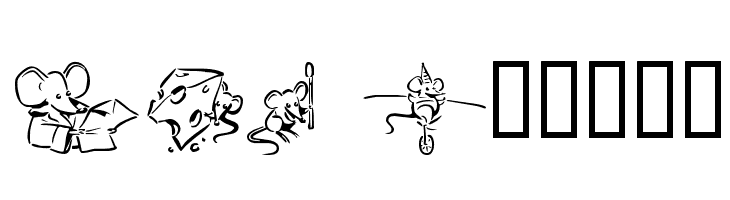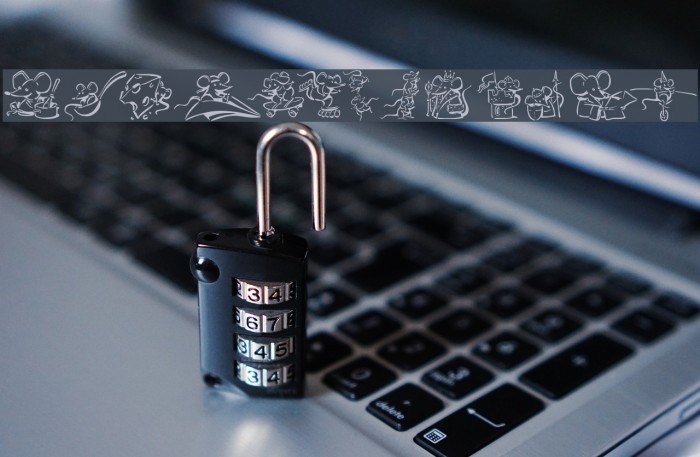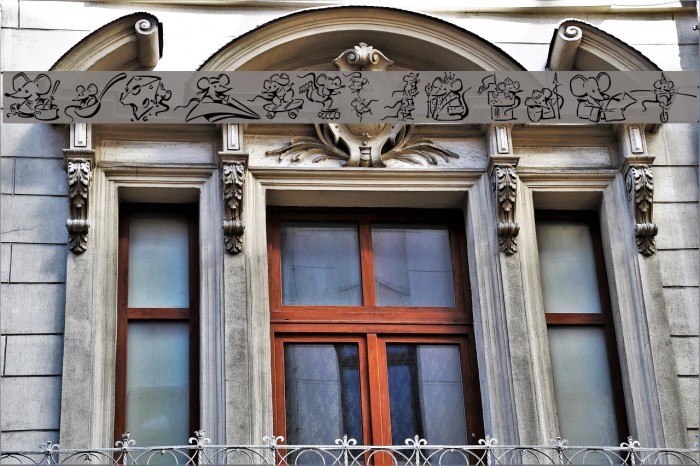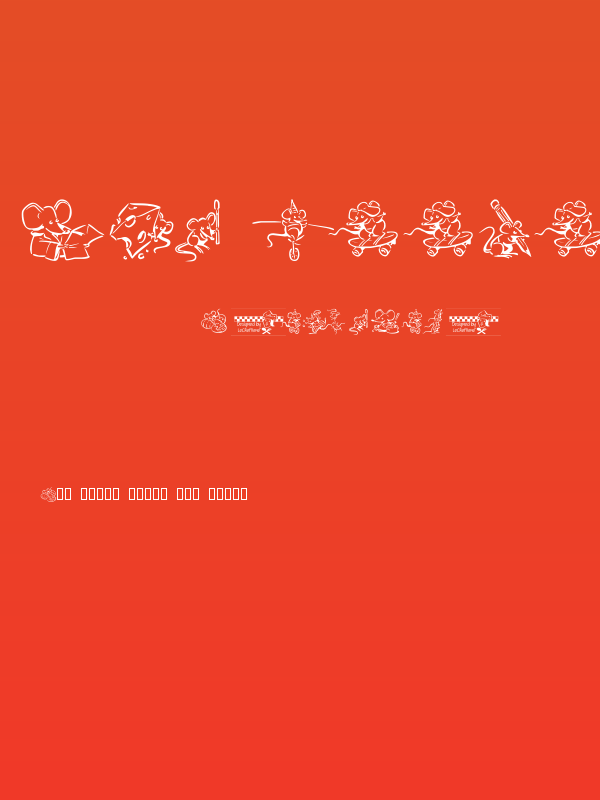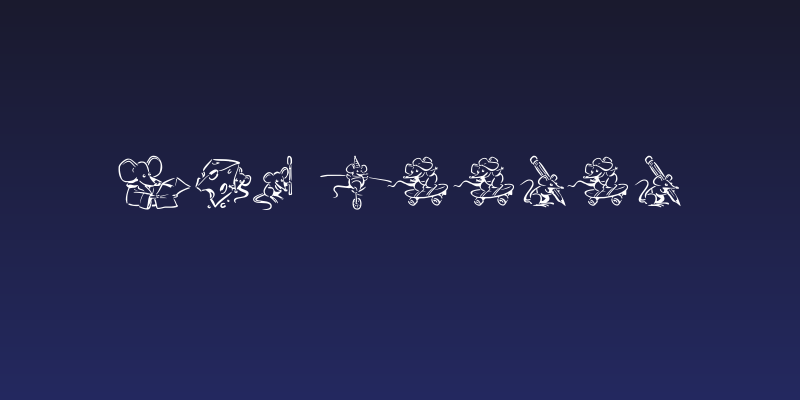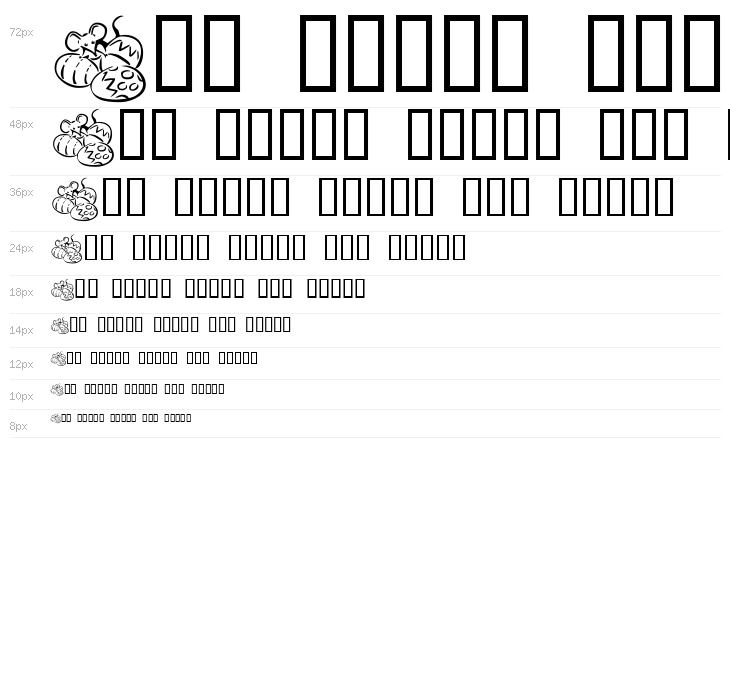
LCR Meeses Font
| Overall Style | Decorative, Whimsical, Playful |
| Use Case | Illustrative headlines, themed graphics, children's content, logos for playful brands. |
| Proposed Projects | Children's books, educational materials, greeting cards, playful branding, comic strips. |